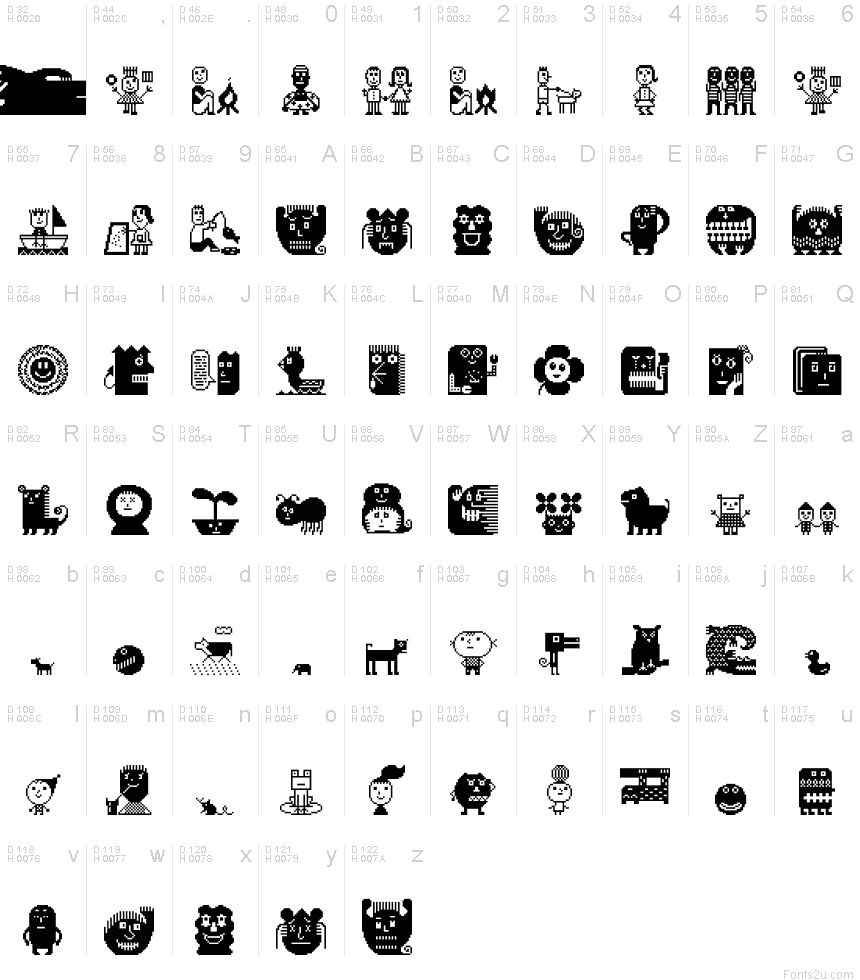
Mononokekeh, created by kekeh of FontStruct, is a free pixel-art dingbat font built from compact cartoon figures. The symbols use hard square edges and deliberately stepped outlines. Tiny faces and simplified bodies give the set a playful, early-computer-game look.
An indie game studio or retro toy label could use these pictograms as part of a recognizable brand system. Their robotic characters and small creature silhouettes also suit game interfaces, merchandise, and children's activity sheets, where each mark can act like a miniature illustration. The low-resolution construction connects those uses to arcade graphics, quirky science fiction, and lighthearted creature stories.